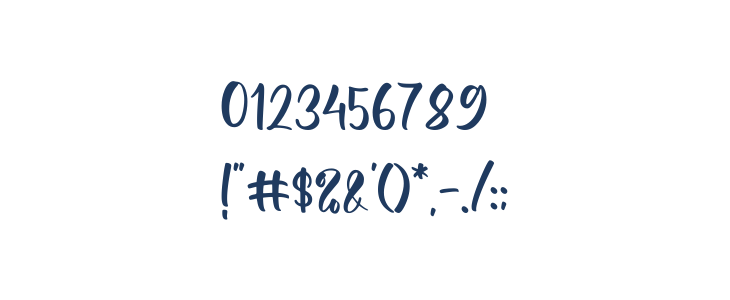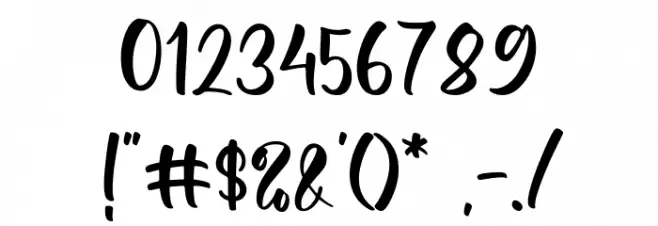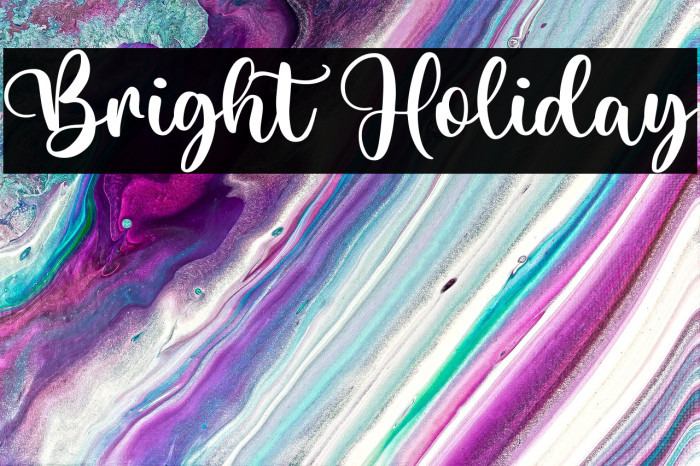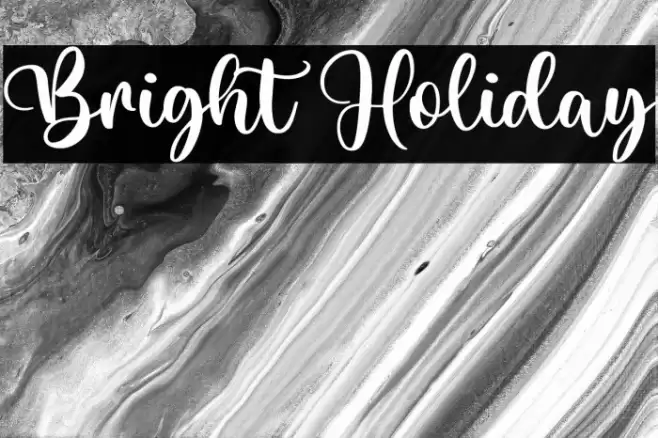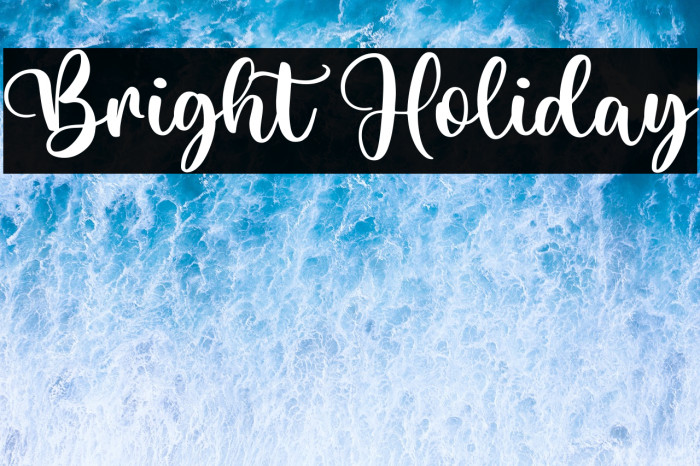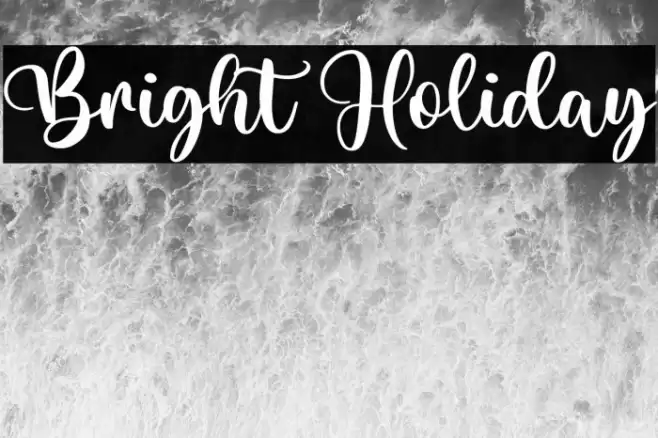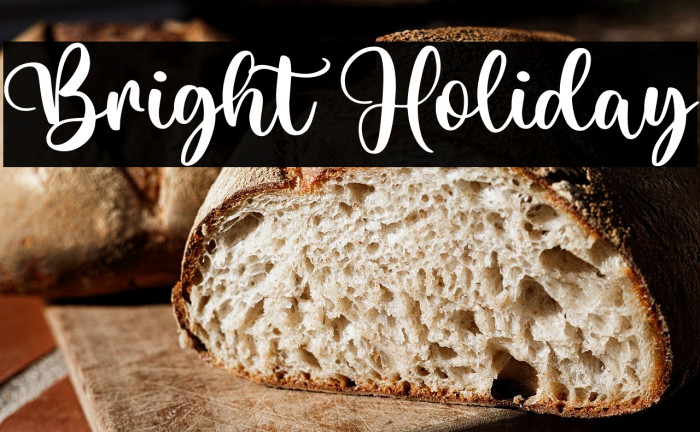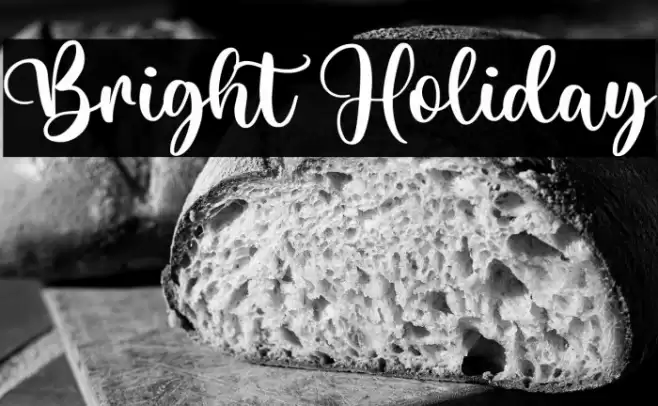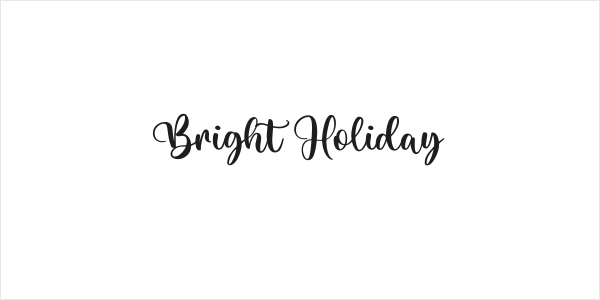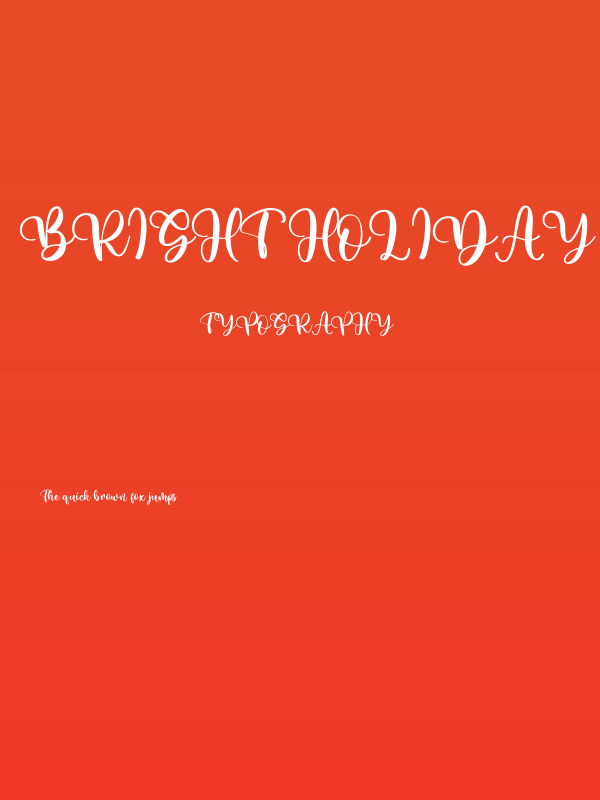
Bright Holiday Font
This font features a lively and flowing script style, characterized by its elegant curves and playful loops. The uppercase letters exhibit a harmonious balance between bold strokes and delicate swirls, creating a sense of movement and grace. The lowercase letters maintain a consistent flow, with smooth connections and a slightly exaggerated slant that adds to the font's dynamic appearance. The numerals are bold and clear, complementing the overall aesthetic with their rounded forms. Special characters are thoughtfully designed, integrating seamlessly with the rest of the font. This script font exudes a sense of joy and celebration, making it ideal for festive occasions.
| Use Case | Headlines, Invitations, Logos |
| Proposed Projects | Ideal for holiday cards, wedding invitations, branding, and festive event posters. |